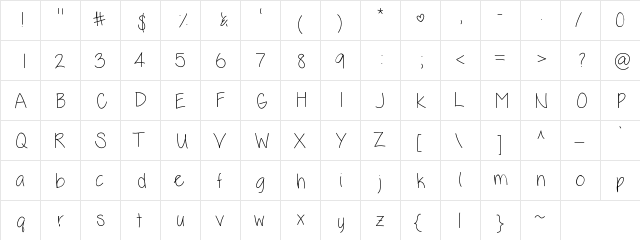
KelliLynn Medium Font Preview
KelliLynn Medium
Design Context for KelliLynn Typeface
KelliLynn takes a measured approach to typography — its balanced proportions and neutral character make it a reliable workhorse for both digital and print work.